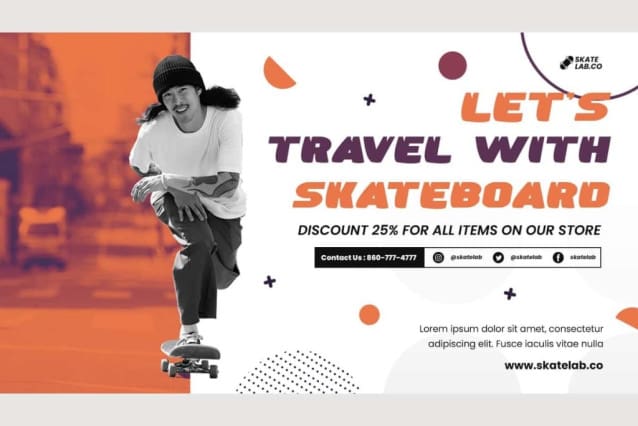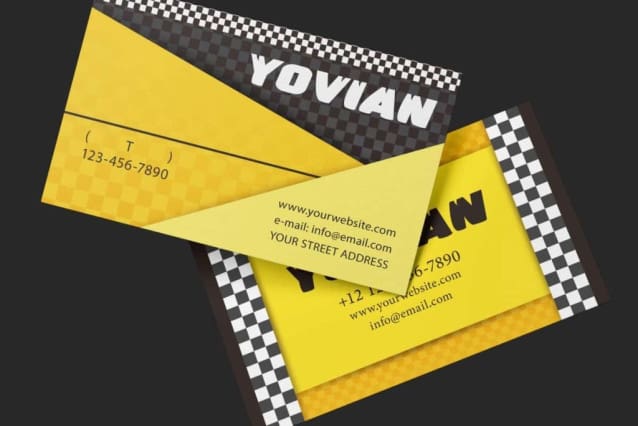
New Player Font
New Player Font is an awesome bold sports font with unique cuts and a little bit of vintage look. This typeface tends to be a bold and powerful display font due to its striking masculine style, created by VinType Studio. Ideal for accessories, automotive, clothing brand, coffee shop, game, graphic design, outdoor activities, racing, sports, and more.
New Player Font includes full set of ALL CAPS for Uppercase and Lowercase Basic Characters, Numbers, Punctuation and Symbols. It is superior in terms of readability and size, as it is specifically designed as a perfect and dynamic font for its users. Perfect for billboard, branding, brochure, cards, editorial design, headers, labels, logos, monograms, posters, racing sports titles, screen print, sleeve paper, stickers, website, or just art text stringing words.